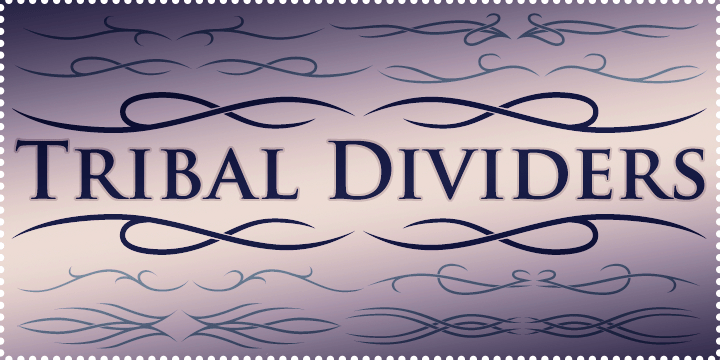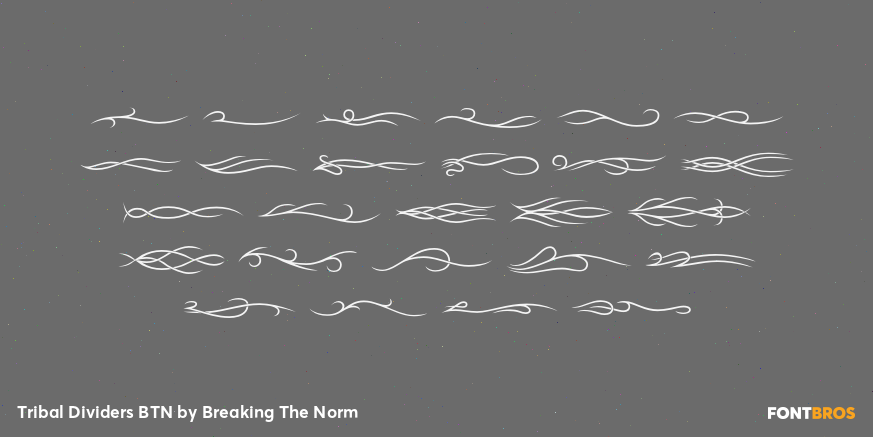
Tribal Dividers BTN
Font Family by Breaking The Norm
Tribal Dividers BTN is a decorative dingbat font designed to bring tribal tattoo-inspired flavor to dividers, flourishes, and ornamental accents. Its bold graphic shapes make it useful for borders, separators, framing elements, logo support, posters, packaging, signage, and themed decorative layouts. Tribal Dividers BTN offers an easy way to add sharp, stylized embellishment to designs that need a strong ornamental edge.